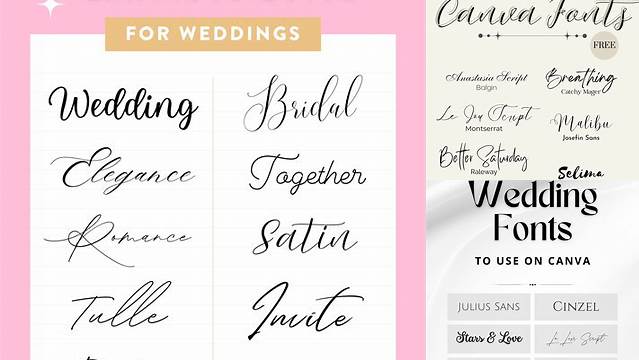
Elegant Wedding Fonts: Cursive Styles In Canva
Choosing the right font for your wedding invitations, signage, and other stationery is crucial for setting the tone and reflecting your personal style. When it comes to wedding fonts, Canva offers a plethora of options, especially if you're looking for elegant cursive styles. This article will dive deep into the world of wedding fonts available on Canva, focusing on cursive fonts that can add a touch of sophistication and romance to your special day. Let's explore the best choices, how to use them effectively, and tips for making your wedding stationery truly memorable.
H2: The Allure of Cursive Fonts for Weddings
Cursive fonts have long been a favorite for weddings, and for good reason. Their flowing, handwritten style evokes feelings of romance, elegance, and timelessness. When you're planning a wedding, every detail matters, and the font you choose can significantly impact the overall aesthetic. Cursive fonts add a personal touch, making your invitations and signage feel more intimate and bespoke. They're perfect for couples who want to convey a sense of tradition while still maintaining a modern flair.
Why are cursive fonts so popular? It's partly because they mimic the look of calligraphy, which has always been associated with important life events. Think about historical documents, formal invitations, and love letters – cursive is often the go-to choice. In the digital age, using cursive fonts in Canva allows you to achieve that same sophisticated look without needing to hire a professional calligrapher. Plus, Canva's user-friendly interface makes it easy to experiment with different fonts and see how they look with your chosen colors and design elements. So, if you're aiming for a classic, romantic vibe, cursive fonts are definitely worth considering for your wedding stationery.
H2: Top Cursive Wedding Fonts on Canva
Canva boasts an extensive library of fonts, but finding the perfect cursive one for your wedding can be overwhelming. Let's highlight some of the top contenders that consistently deliver elegance and readability. These fonts have been selected for their aesthetic appeal, versatility, and suitability for various wedding themes.
First up is "Great Vibes," a classic choice that exudes sophistication. Its sweeping curves and graceful lines make it ideal for headings and titles. Another popular option is "Herr Von Muellerhoff," which has a more ornate and vintage feel. This font is perfect for couples who are planning a vintage or rustic-themed wedding. If you're after something a bit more modern, consider "Playlist Script." It's a bold and playful script that works well for couples who want to inject some fun into their wedding stationery. For a subtle and refined look, "Allura" is an excellent choice. Its delicate strokes and elegant loops make it perfect for body text and smaller details. Finally, "** শিখেছি Script**" offers a unique and slightly whimsical feel, perfect for a bohemian or garden-themed wedding. Remember to experiment with different sizes and weights to see which font best suits your overall design.
H2: How to Pair Cursive Fonts with Other Fonts
While cursive fonts are beautiful on their own, pairing them with other fonts can elevate your wedding stationery to the next level. The key is to create a balance between elegance and readability. Cursive fonts are typically best used for headings, titles, and important details, while simpler fonts should be used for body text to ensure clarity.
A classic pairing is cursive with a sans-serif font like Arial or Helvetica. This combination provides a clean and modern contrast to the flowing script. For example, you could use "Great Vibes" for the names of the bride and groom and Arial for the wedding date and venue details. Another effective pairing is cursive with a serif font like Times New Roman or Garamond. This creates a more traditional and formal look, perfect for classic weddings. When choosing fonts to pair with cursive, consider the overall style of your wedding. If you're having a rustic wedding, you might pair a cursive font with a more rugged, handwritten-style font. For a modern wedding, stick to clean and minimalist sans-serif fonts. Experiment with different combinations until you find a pairing that reflects your personal style and complements your wedding theme. Don't be afraid to mix and match, but always prioritize readability.
H2: Customizing Cursive Fonts in Canva
One of the great things about using Canva for your wedding stationery is the ability to customize cursive fonts to suit your specific needs. Canva offers a range of tools that allow you to adjust the size, color, spacing, and other attributes of your fonts.
To start, select the cursive font you want to use and then explore Canva's editing options. You can change the size of the font to make it more prominent or subtle. Adjusting the color can also have a big impact. Consider using colors that complement your wedding theme, such as blush pink, gold, or navy blue. Line height and letter spacing are also important factors to consider. Adjusting these settings can improve readability and create a more balanced design. Canva also allows you to add effects to your fonts, such as shadows, outlines, and glows. These effects can add depth and dimension to your text, making it stand out even more. Experiment with different combinations of these settings until you achieve the perfect look for your wedding stationery. Remember to keep your overall design in mind and ensure that your customized fonts work harmoniously with the other elements.
H2: Using Cursive Fonts for Wedding Invitations
Wedding invitations are often the first glimpse your guests get into your special day, so making a lasting impression is key. Using cursive fonts in your invitations can add a touch of elegance and sophistication, setting the tone for a memorable event. When designing your invitations in Canva, consider using cursive fonts for the most important details, such as the names of the bride and groom, the date, and the venue.
For example, you could use a beautiful cursive font like "Great Vibes" for the couple's names at the top of the invitation, followed by the date and time in a clean sans-serif font like Arial. This creates a balanced and visually appealing design. You can also use cursive fonts for decorative elements, such as headings or quotes. However, be careful not to overuse cursive fonts, as this can make the invitation look cluttered and difficult to read. Remember to prioritize readability by using simpler fonts for essential information like RSVP details and directions. When choosing a cursive font for your wedding invitations, consider the overall style of your wedding. A formal wedding might call for a more traditional cursive font, while a modern wedding might benefit from a bolder and more playful script. With Canva's easy-to-use design tools, you can create wedding invitations that perfectly reflect your personal style and set the stage for a truly unforgettable celebration.
When designing your wedding logo, start by brainstorming ideas that represent you as a couple. Consider your shared interests, hobbies, or any symbols that hold special meaning for you. Then, experiment with different cursive fonts in Canva to see which ones best capture the essence of your relationship. A popular approach is to use the couple's initials in a flowing cursive script, often intertwined with a decorative element like a floral motif or a heart. You can also incorporate your wedding date or a meaningful quote into the logo design. Remember to keep your logo simple and versatile, as it will be used across a variety of materials, from invitations and thank-you cards to signage and favors. Choose colors that complement your wedding theme and ensure that the logo is legible at both small and large sizes. With Canva's easy-to-use design tools, you can create a wedding logo that perfectly represents you as a couple and adds a touch of sophistication to your special day.